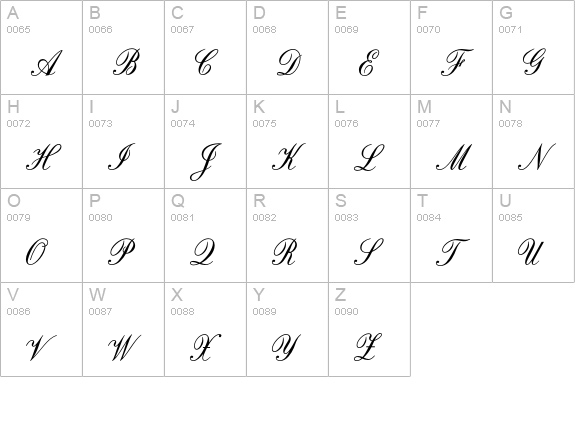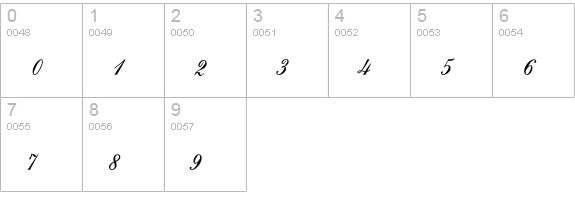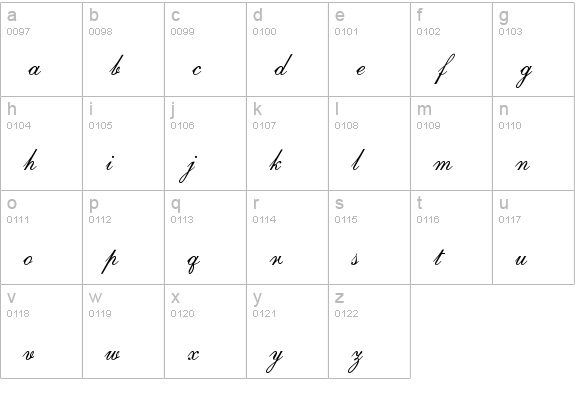
OPTIOriginal-Script Font Details
Introducing OPTIOriginal-Script font, a beautifully crafted typeface that exudes elegance and sophistication. This stunning script font features intricate details and graceful curves, making it perfect for adding a touch of class to any design project. Whether you're creating wedding invitations, branding materials, or social media graphics, OPTIOriginal-Script font is sure to make a lasting impression. What sets OPTIOriginal-Script font apart is not only its timeless design, but also the fact that it is completely free to download. Yes, you read that right – this exquisite font is freely available for you to use in your personal and commercial projects. Simply visit FontsMarket.com to access this gem of a typeface and elevate your designs to new heights. With its versatility and charm, OPTIOriginal-Script font is a must-have for any designer looking to add a touch of sophistication to their work. Download it today and let your creativity shine with this stunning script font.